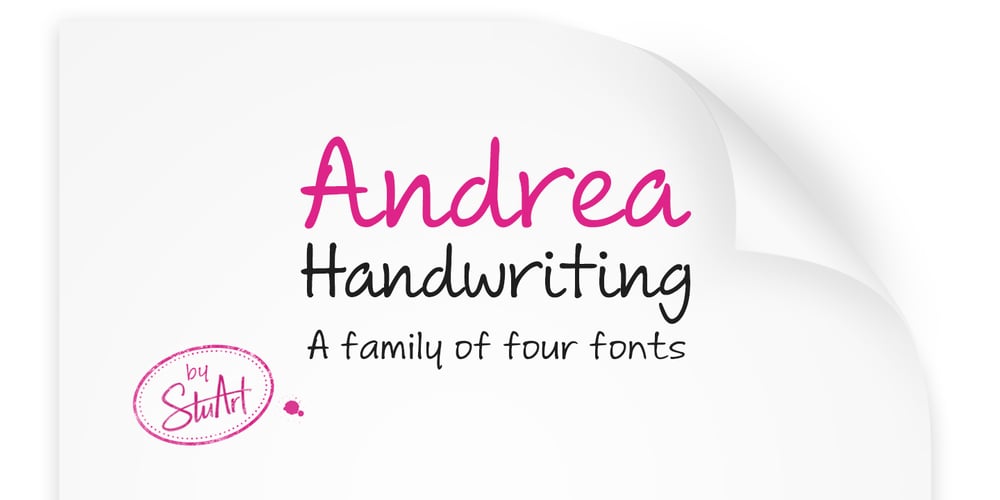
Andrea Handwriting
Andrea Handwriting font
Andrea Handwriting Font Family was designed by Andrea Stuart and published by StuArt. Andrea Handwriting contains 4 styles and family package options. Born out of an insatiable addiction to handwriting fonts, Andrea’s Handwriting fonts are simple, readable and easy on the eyes.Each font is cool, casual and fun all at the same time.Perfect for printing your personal thoughts be they silly, pensive or absolutely nonsense!